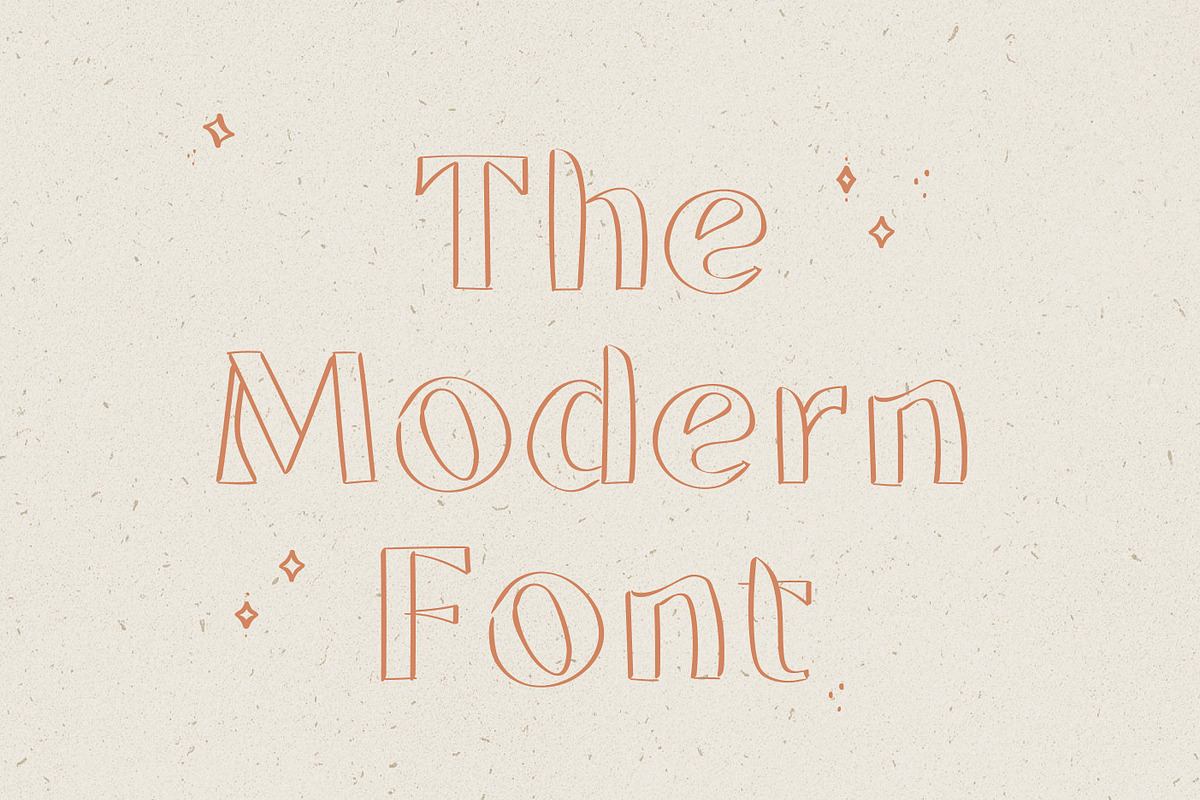
The Modern Font / sketched style Free Download
The Modern Font / Sketched Style Free Download
The Modern Font / Sketched Style Free Download is a unique typeface that combines modern design with a hand-drawn, sketched aesthetic. Featuring rough, textured edges and a creative, informal style, this font is perfect for projects that need a playful, artistic feel, such as posters, branding, logos, greeting cards, and social media graphics.
The Modern Font / Sketched Style Free Download gives a handmade touch to your designs while maintaining readability, making it ideal for projects that call for a modern, yet creative look. Whether you're working on a quirky brand, a creative campaign, or an artistic event, this font adds personality and charm to your work.